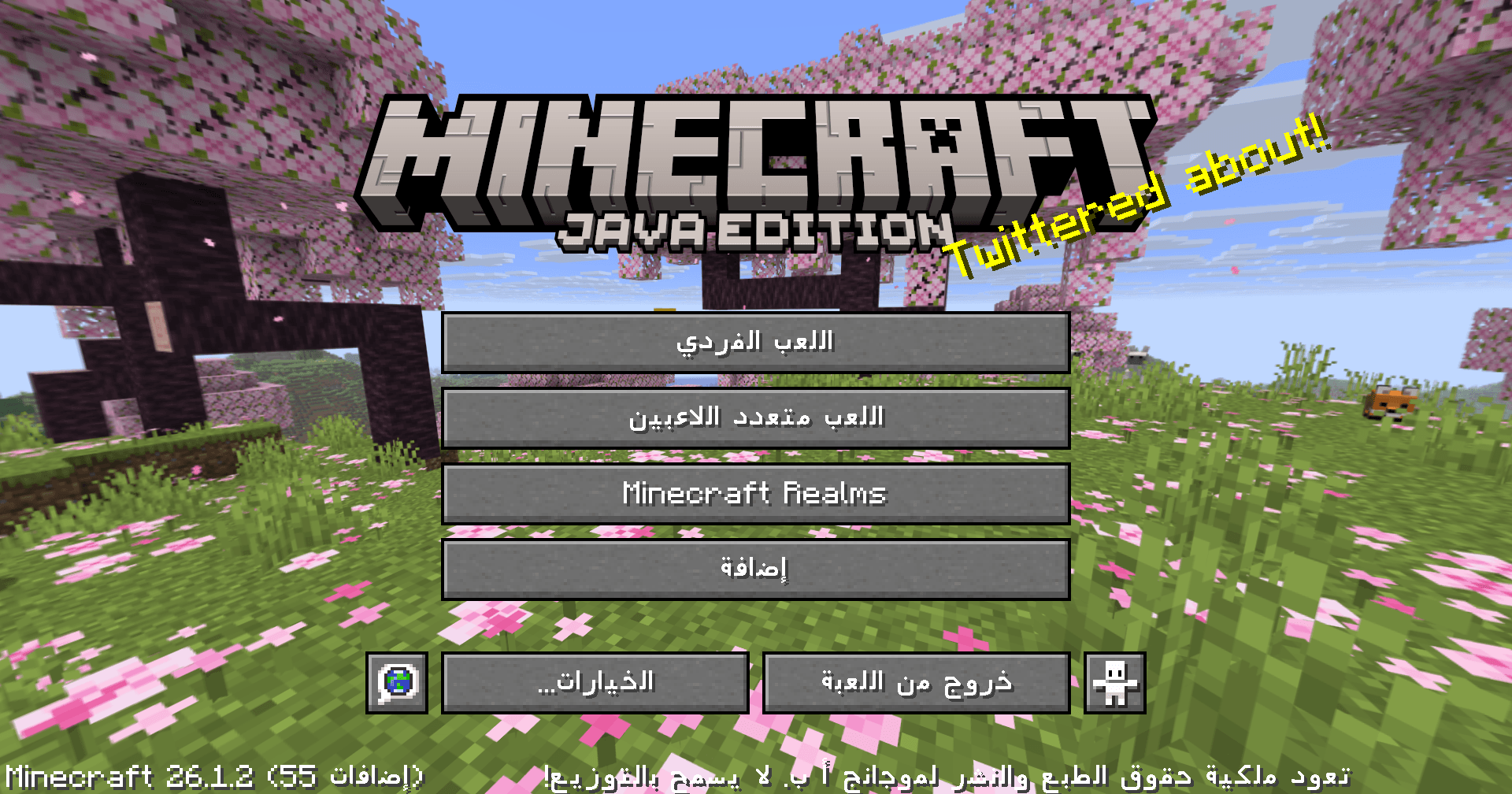
Arabic Clean Font (32x)
A clean and readable Arabic font for Minecraft, designed to improve clarity and provide a smooth, distraction-free experience.
Arabic Clean Font - Built to improve the Adhkar mod experience
Arabic Clean Font is a Minecraft resource pack designed to improve Arabic text readability with a clean, modern font.
Perfect for players who want better Arabic support, clearer UI, and a smoother experience in Minecraft.
Why Arabic Clean Font?
Minecraft does not fully support Arabic text rendering. This resource pack helps improve:
• ✔ Arabic font clarity
• ✔ Readability in chat and UI
• ✔ Clean and minimal text appearance
• ✔ Better visual experience for Arabic players
⚠️ Important Notes
• Minecraft does not fully support Arabic shaping (RTL)
• Some text may appear:
• Separated
• Reversed
• This is a limitation of the game engine, not the resource pack